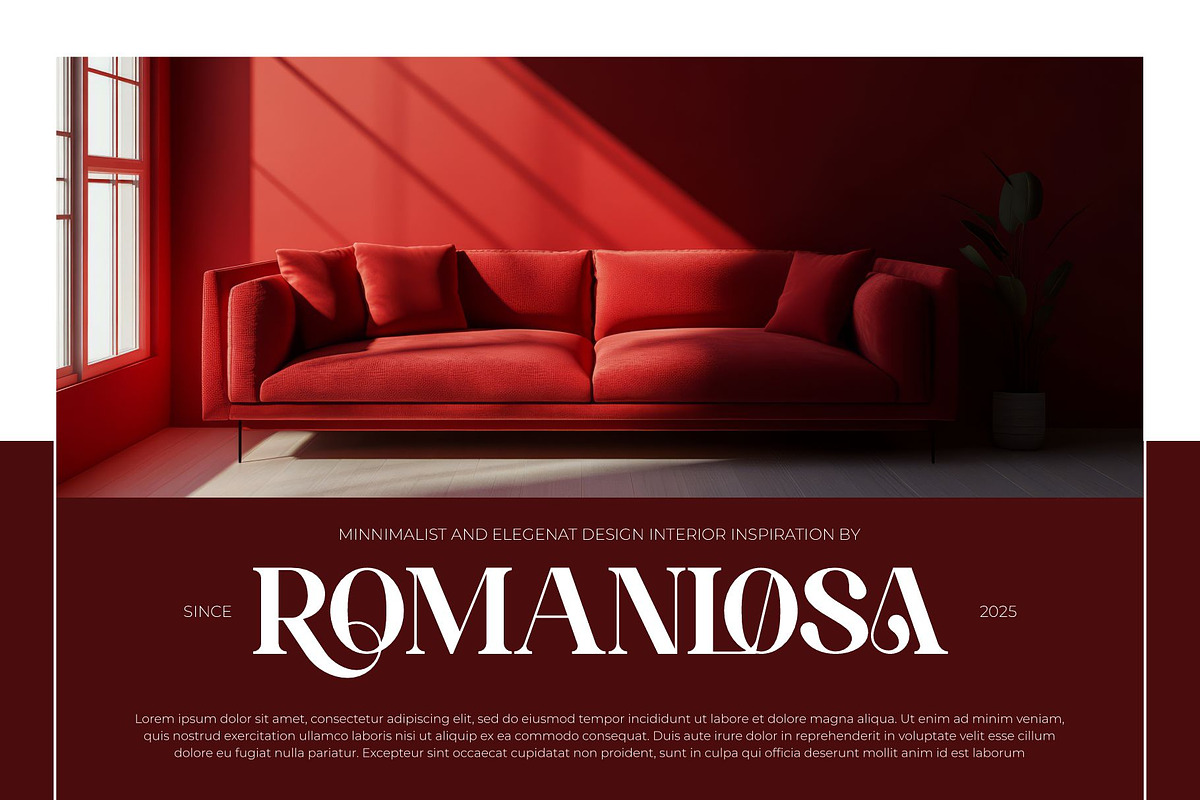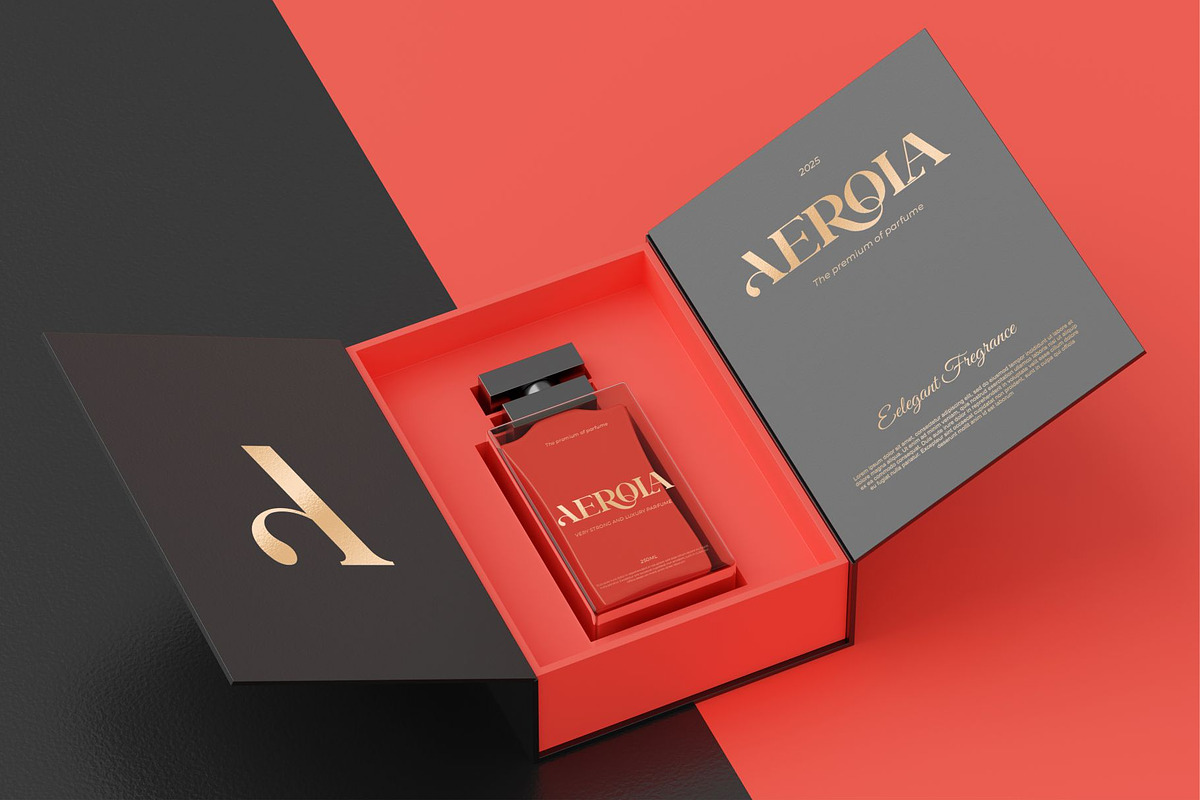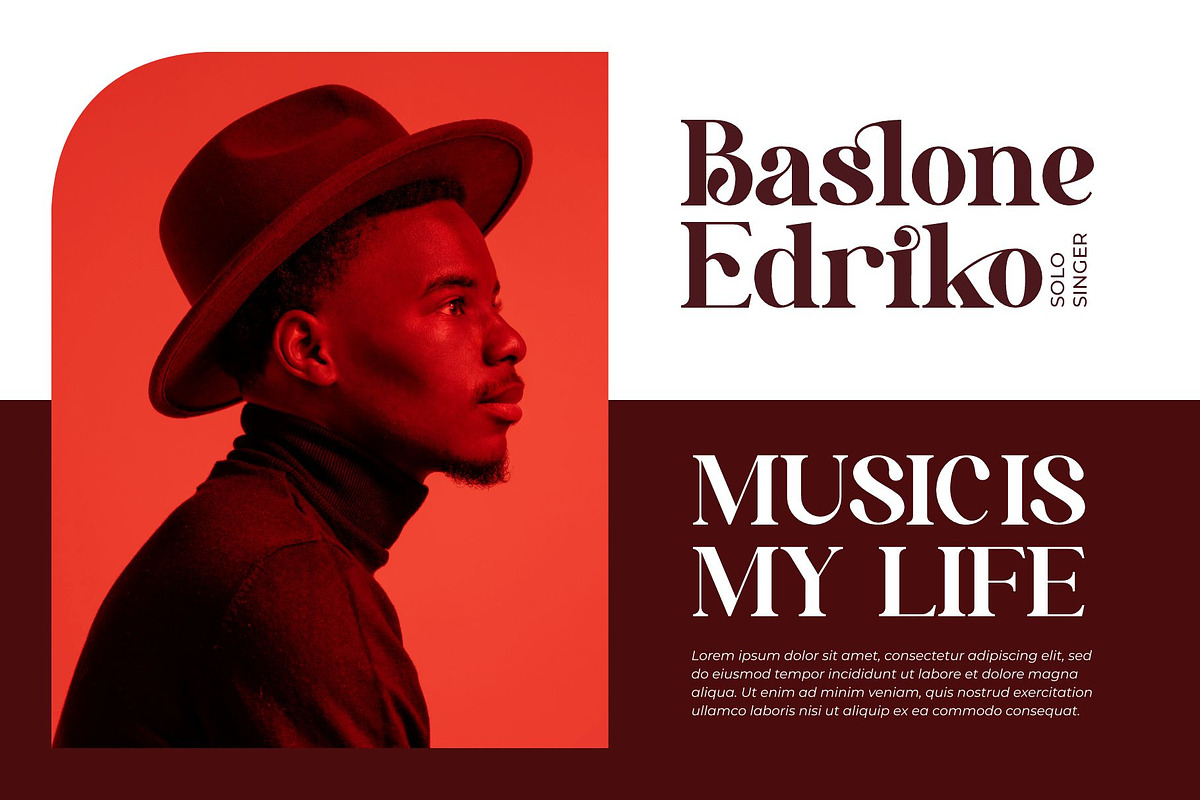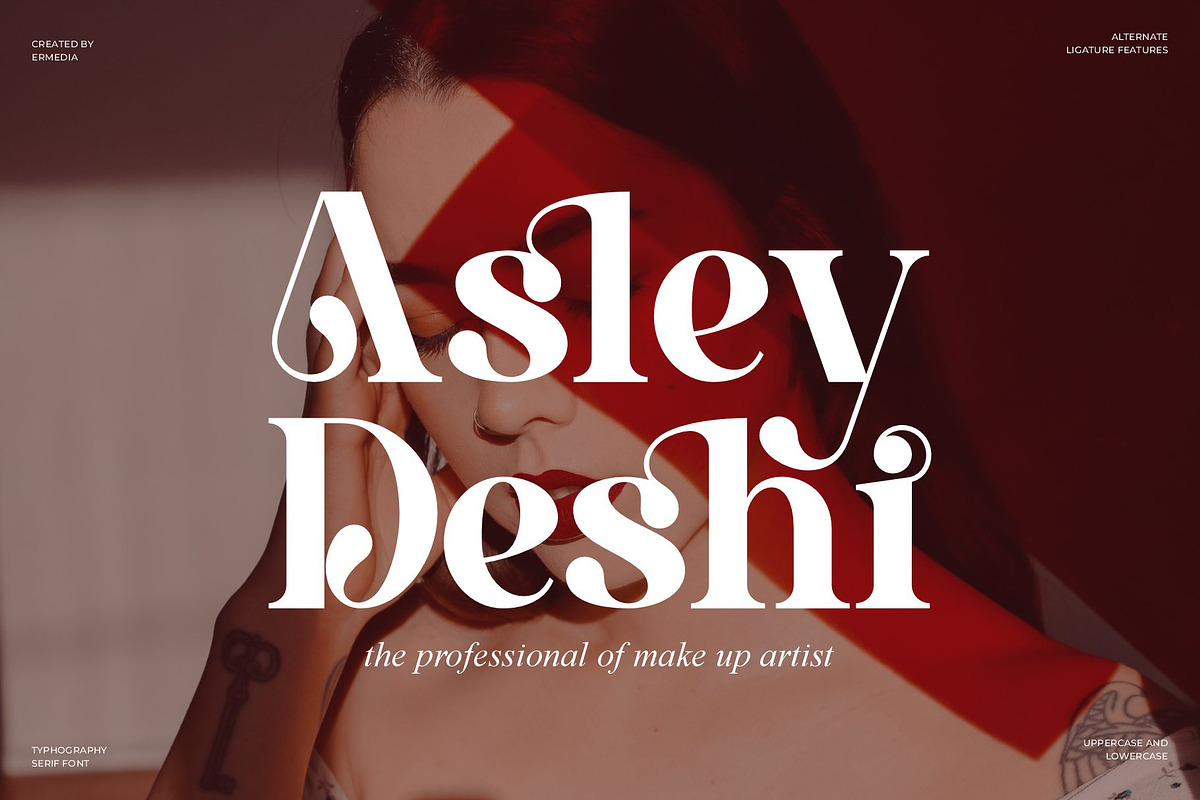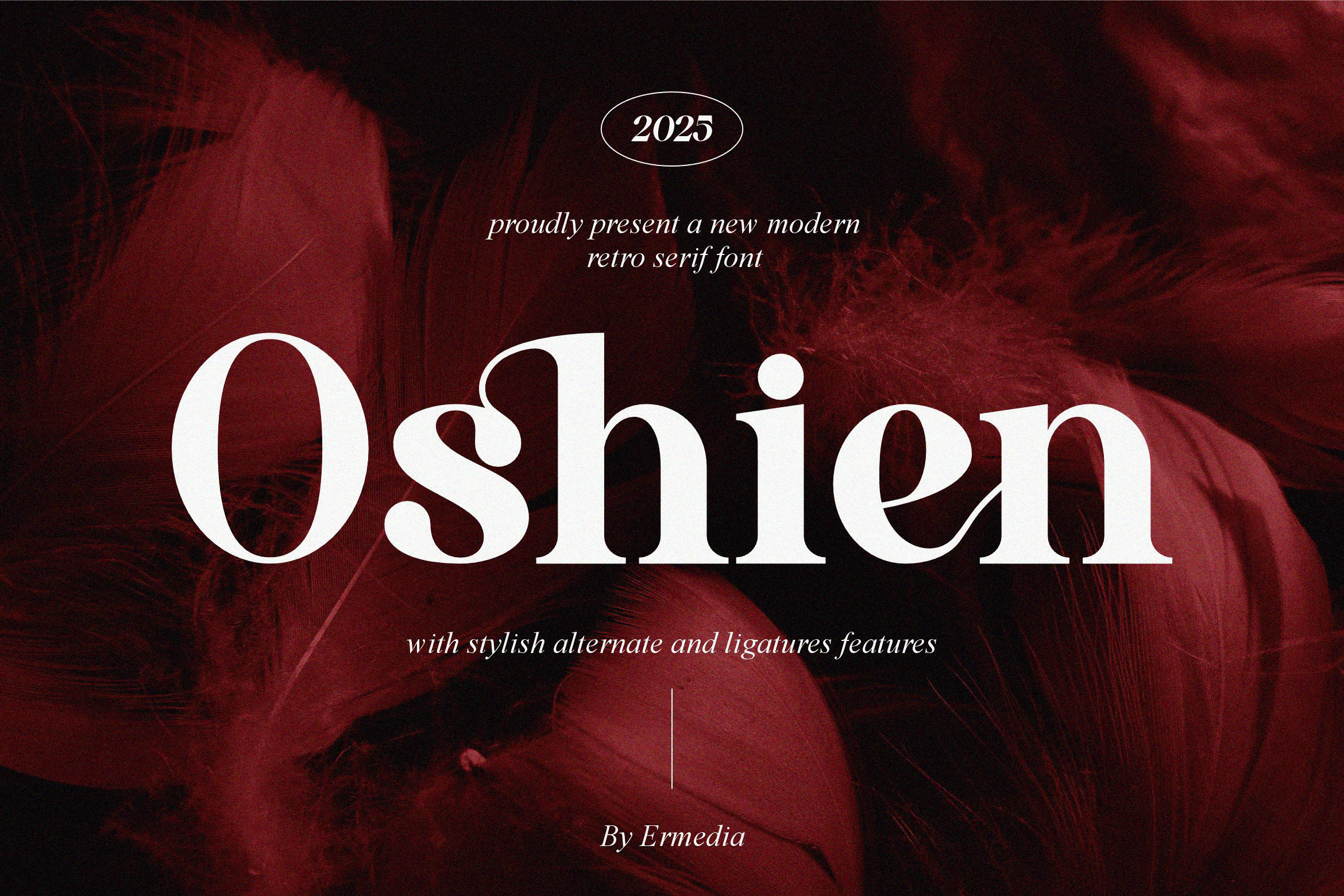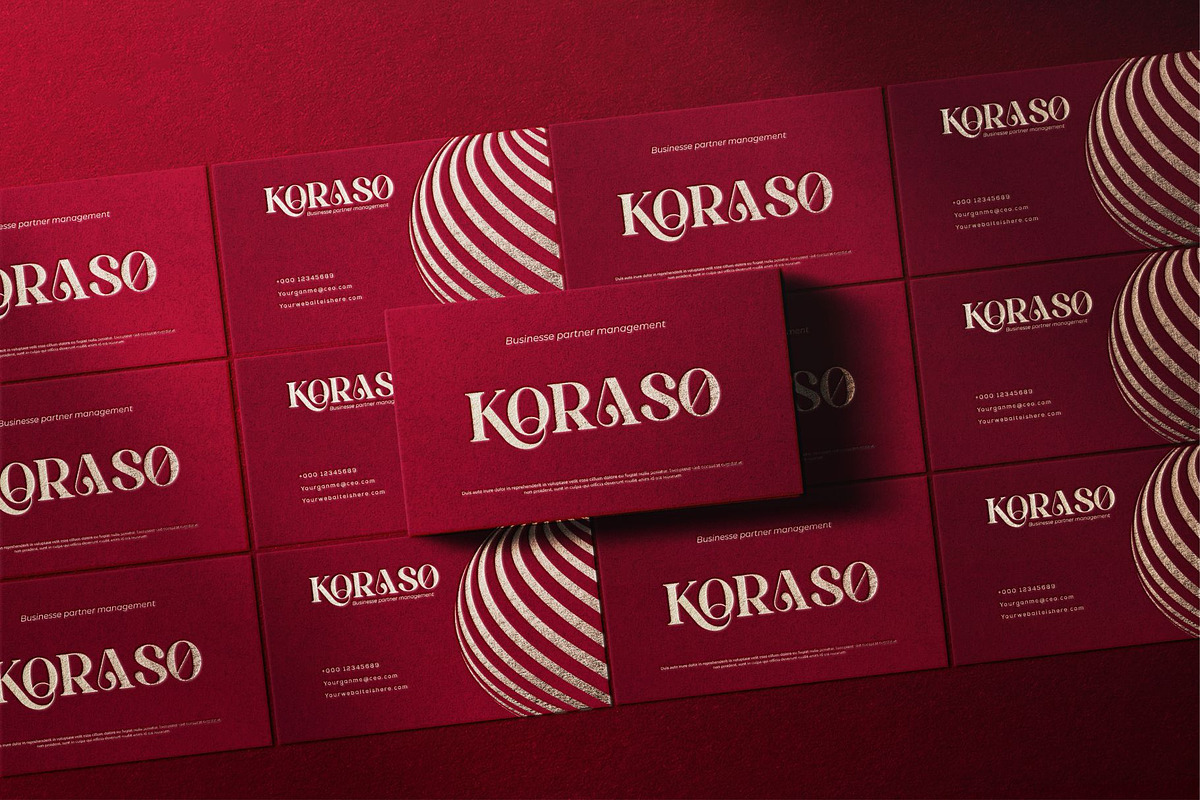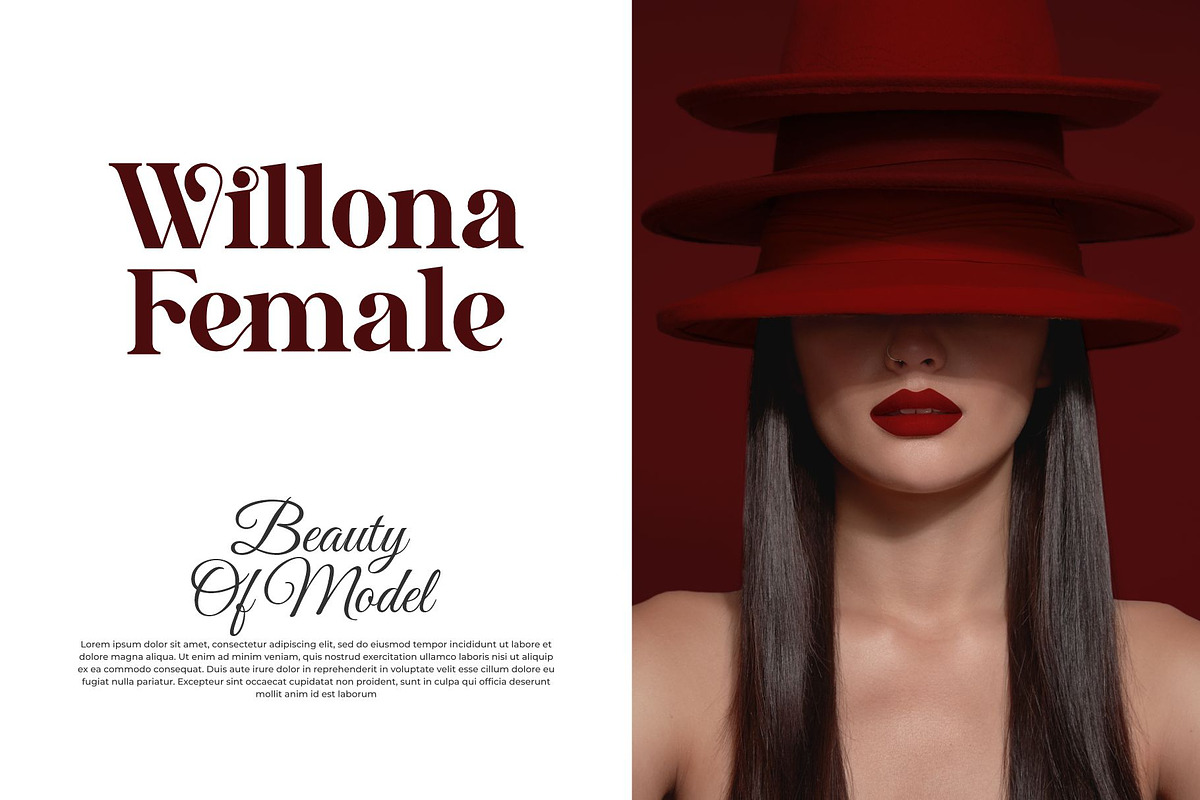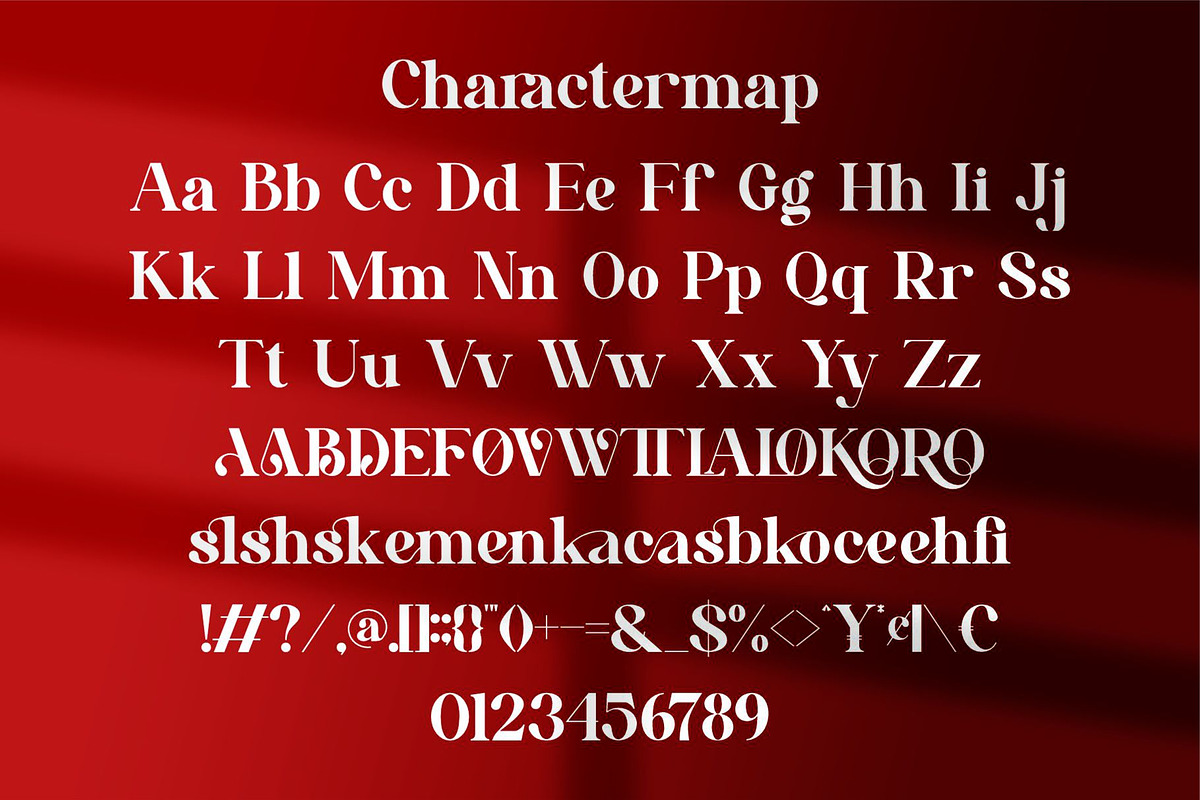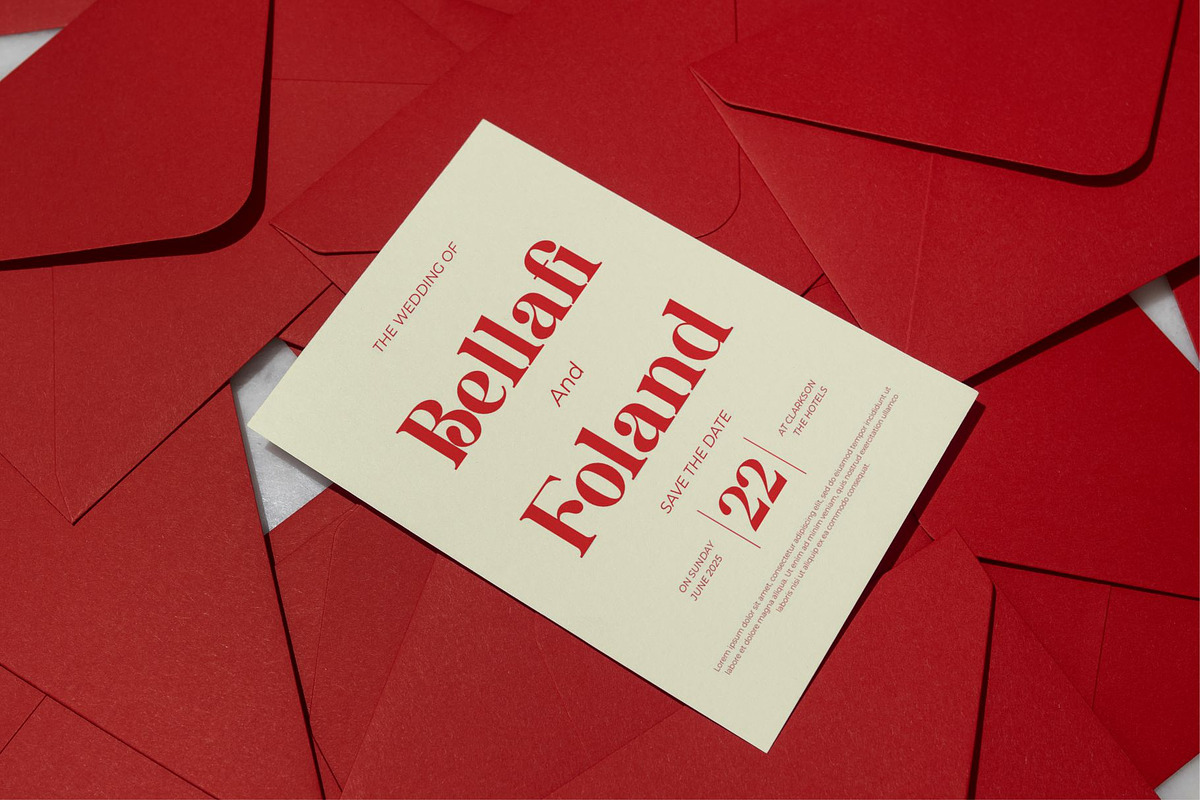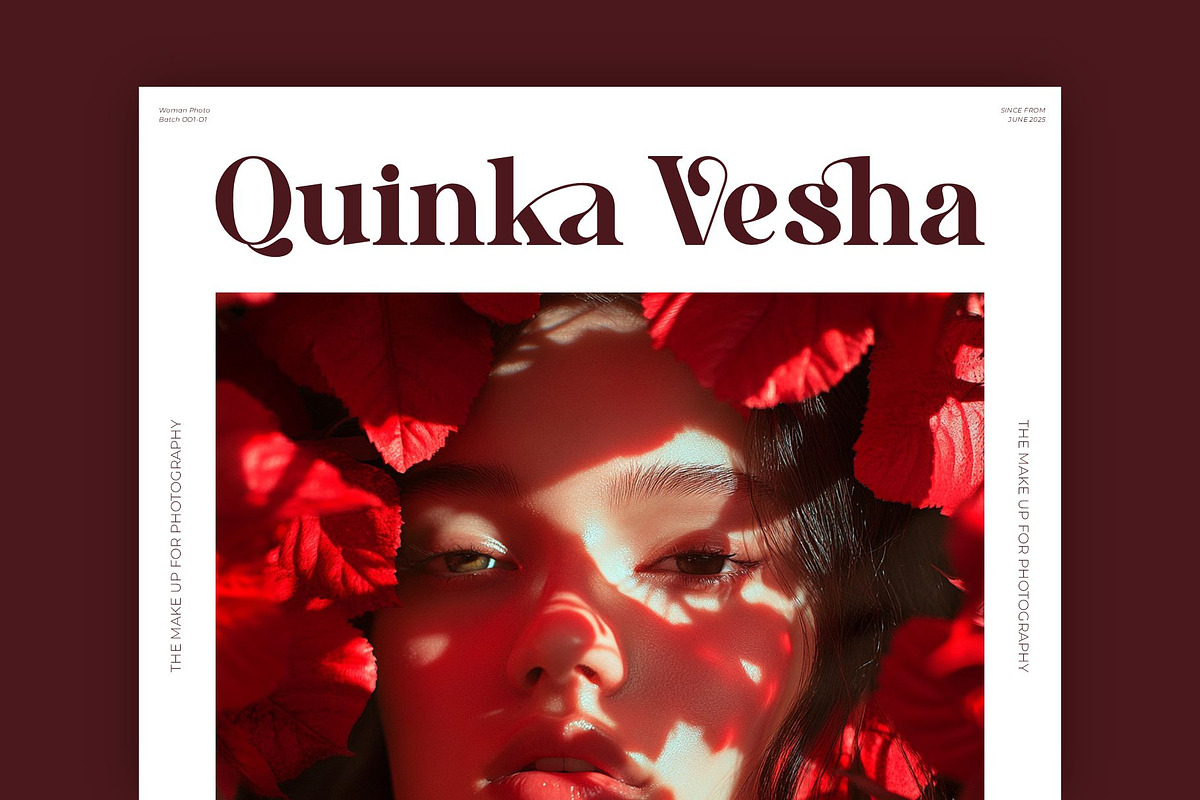
Oshien || Modern Serif Font
Oshien Serif is a modern and classy font type for all branding and logo designs. This modern and classy Serif font has a beautiful character. This font is suitable for invitation card designs, cool logos, movie titles, movie names, business cards, book titles, brand names, and various other designs. Oshien Serif is a smooth serif font that exudes sophistication and the moment. Its stylish ligatures make this font a perfect partner for any project.